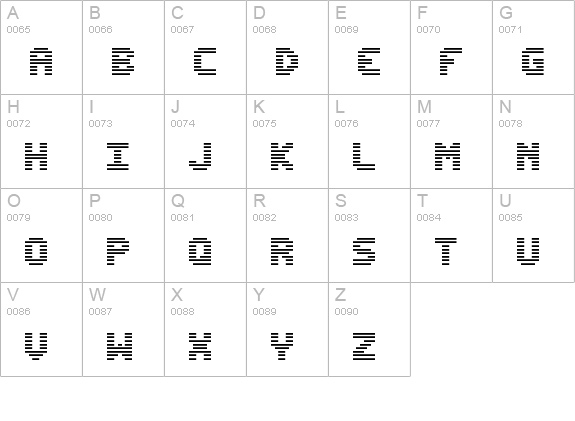
Edit Undo Line BRK is a stunningly sleek and modern font that is perfect for adding a touch of sophistication to any project. This font features clean lines and sharp angles, giving it a contemporary and edgy vibe. It is the perfect choice for those looking to make a bold statement with their typography. With its unique design, Edit Undo Line BRK is sure to grab attention and leave a lasting impression. Whether you're designing a logo, creating a poster, or working on a website, this font will add a stylish and professional touch to your work. One of the best things about Edit Undo Line BRK is that it is available for free. You can easily download this font at FontsMarket.com, a trusted source for high-quality fonts. By making Edit Undo Line BRK freely available, the creators have made it accessible to everyone, regardless of budget or resources. Don't miss out on the opportunity to enhance your designs with Edit Undo Line BRK. Download this font today and experience the power of its sleek and modern aesthetic.